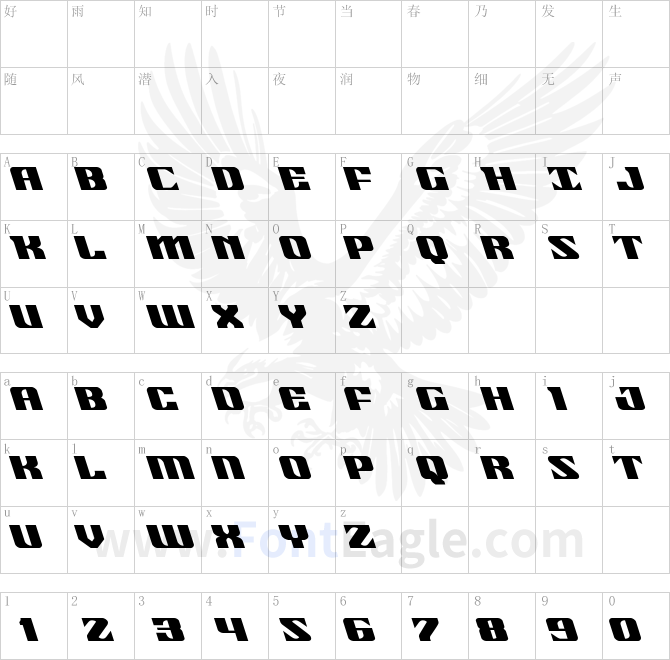
- Font name:21 Gun Salute Leftalic
- Font Subfamily ID:21 Gun Salute Leftalic: 2013
- Font Full Name:21 Gun Salute Leftalic
- Postscript:21GunSaluteLeftalic